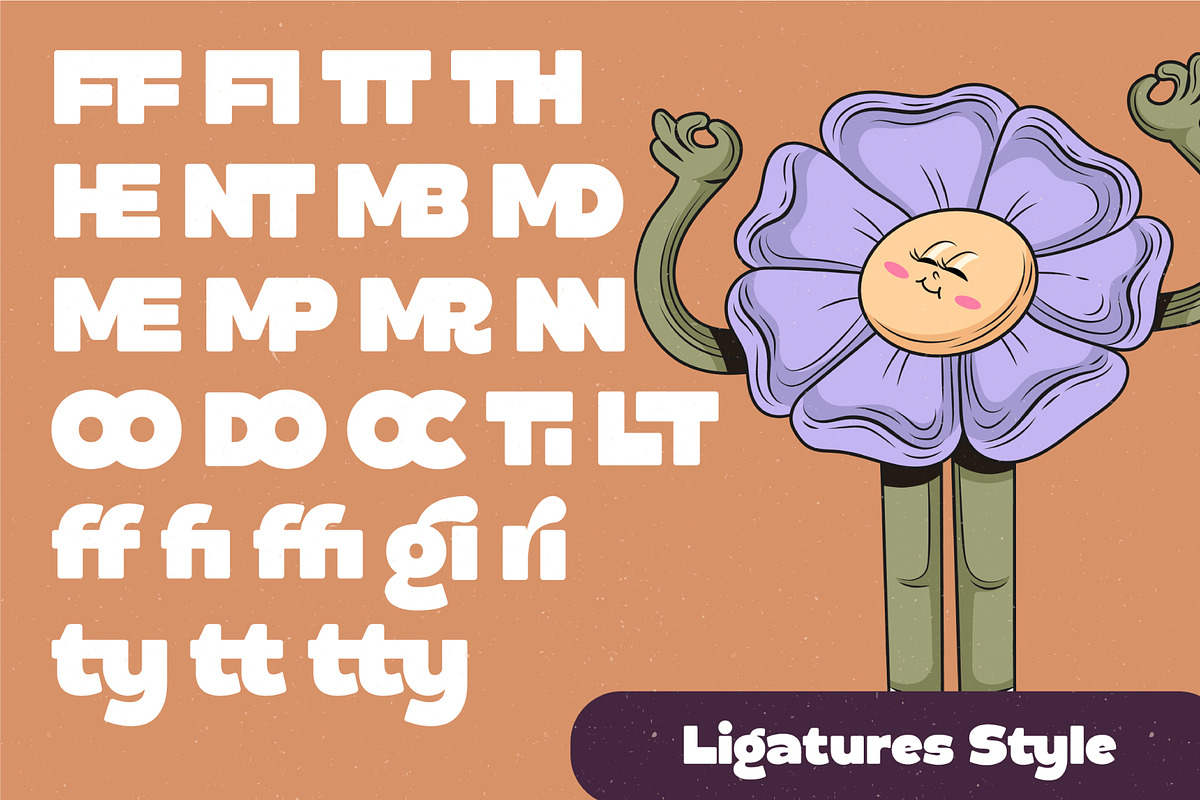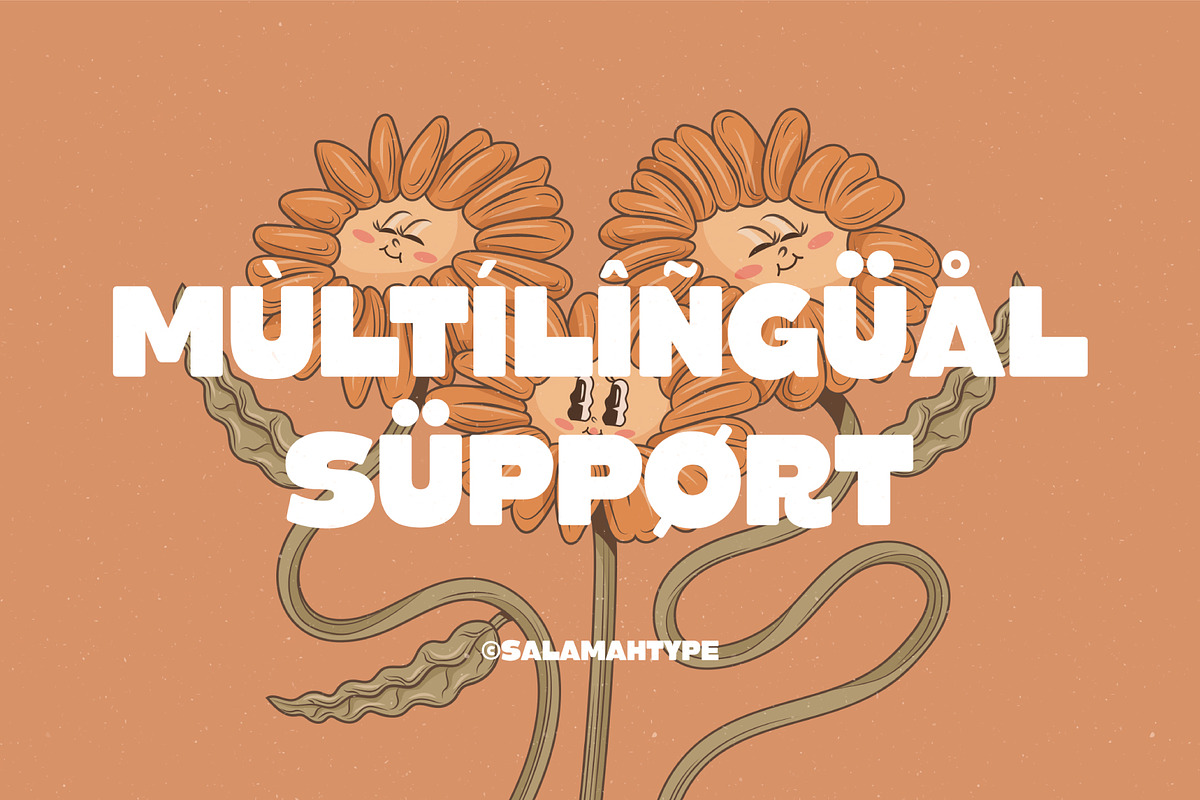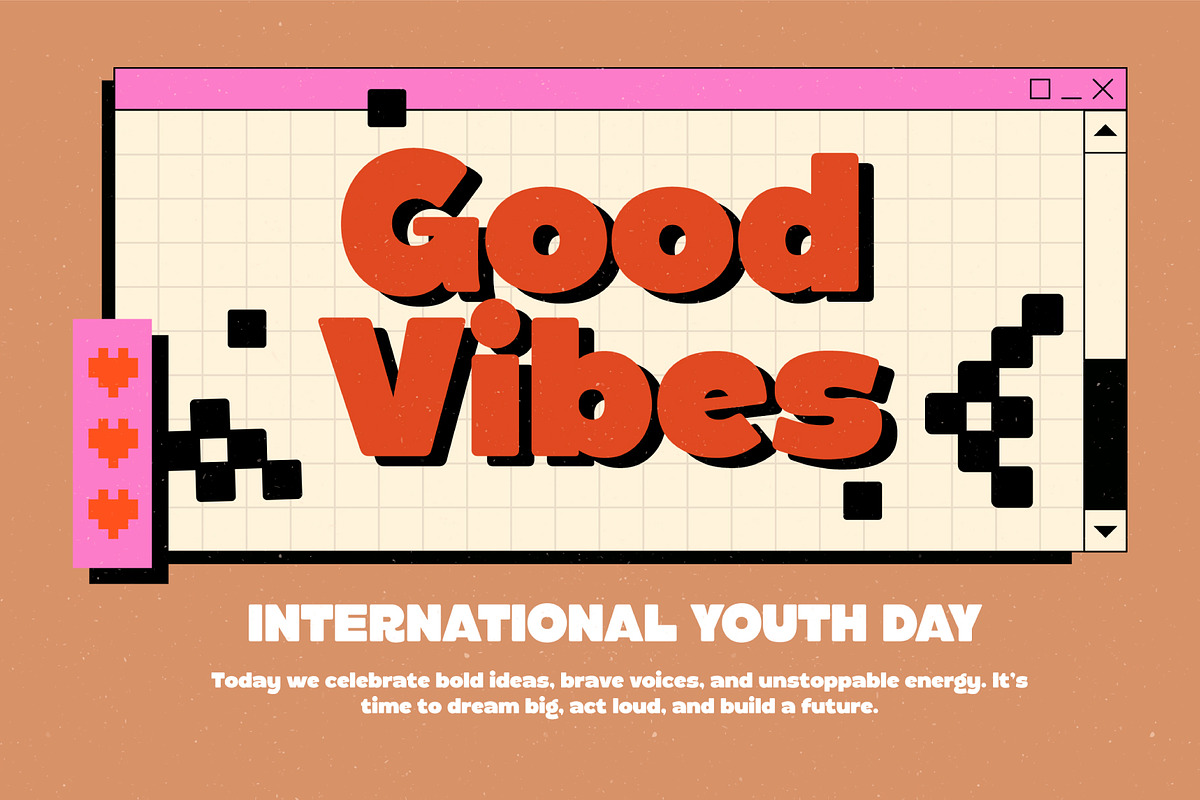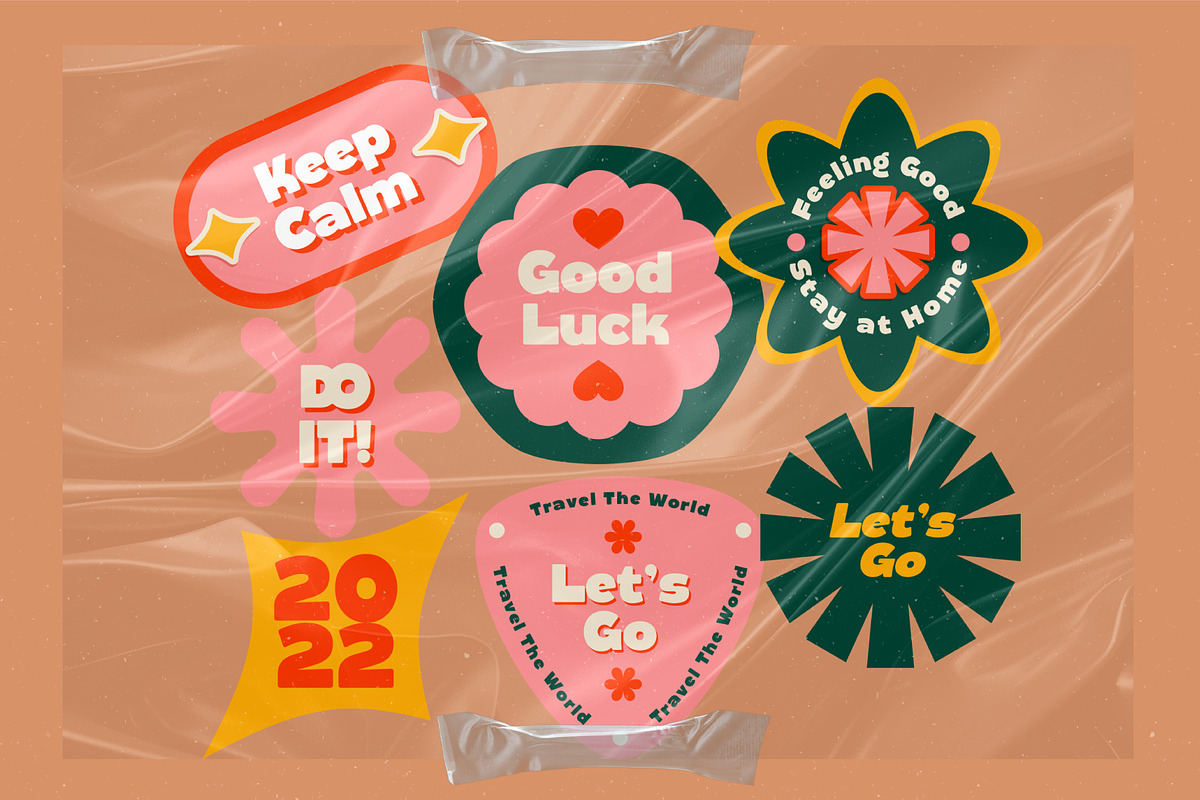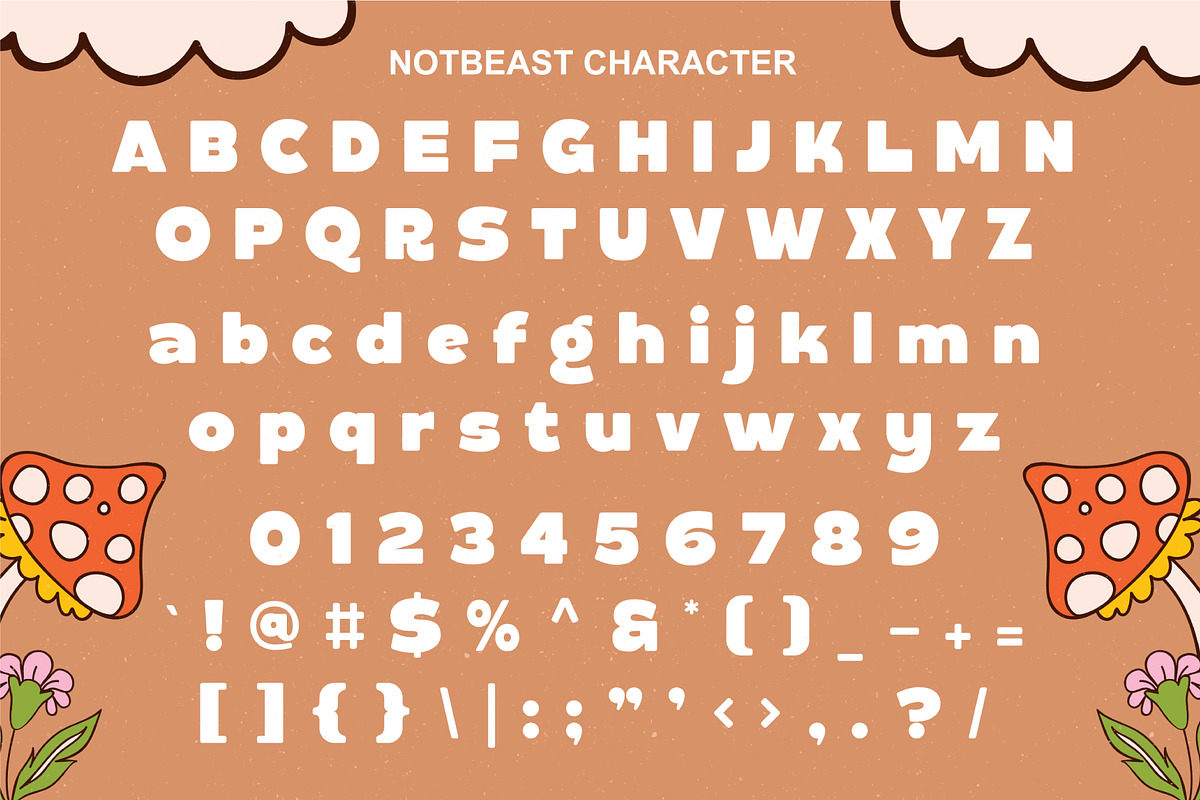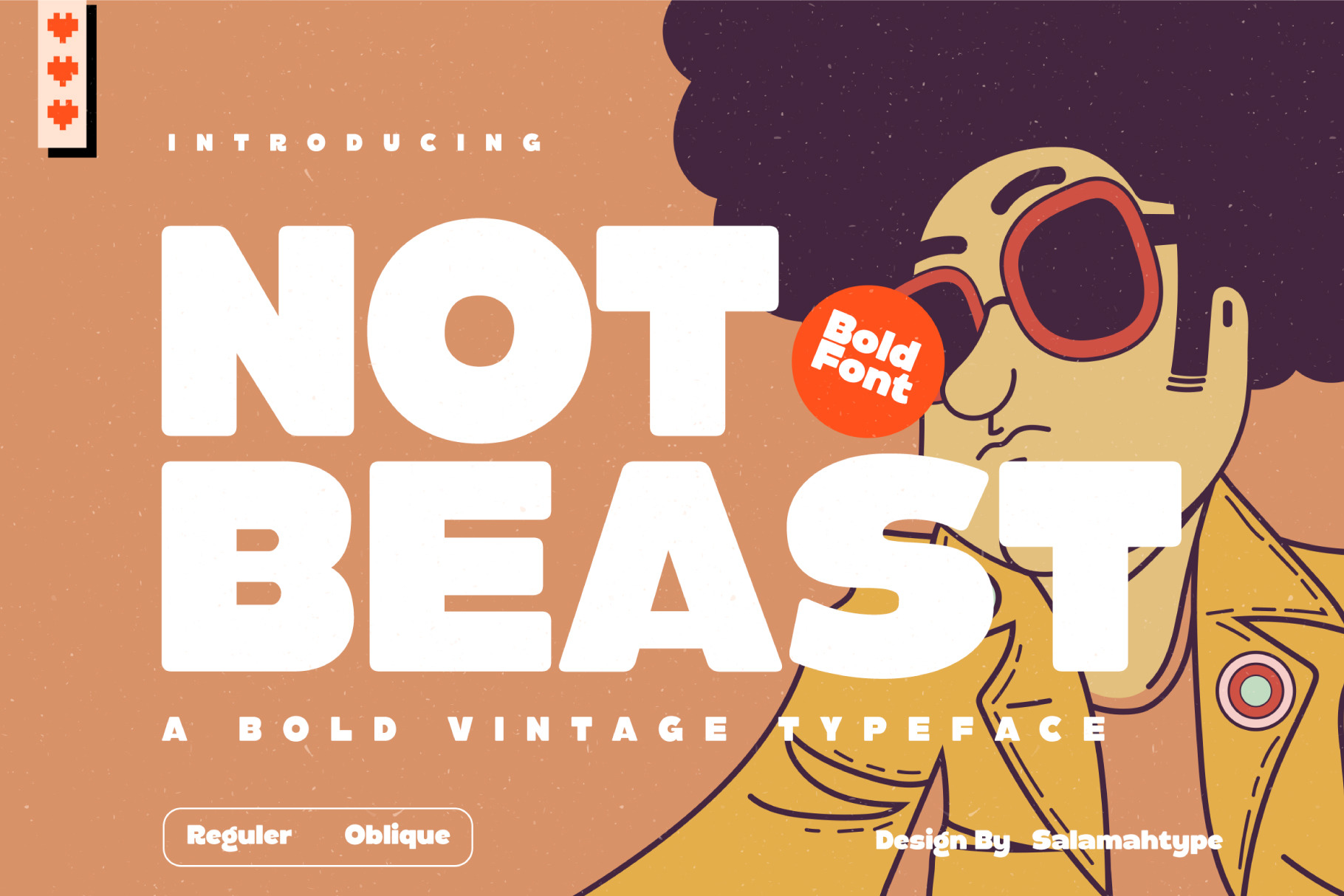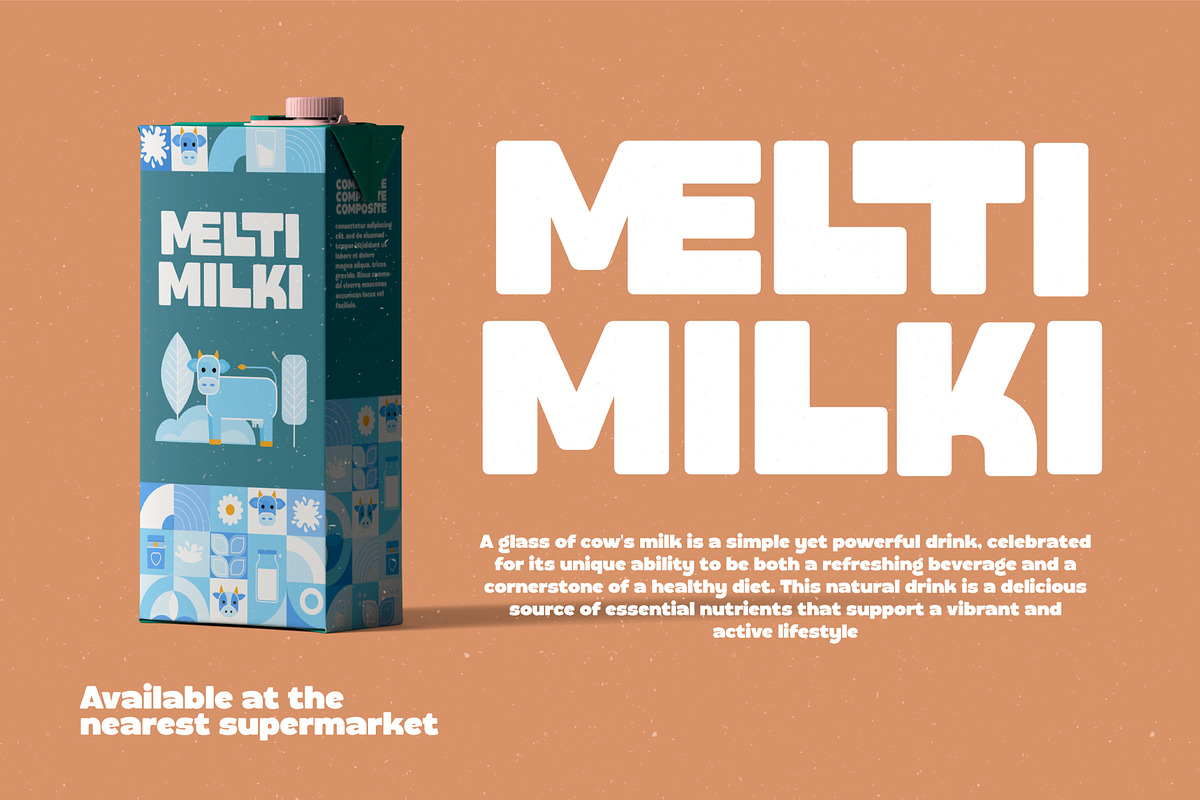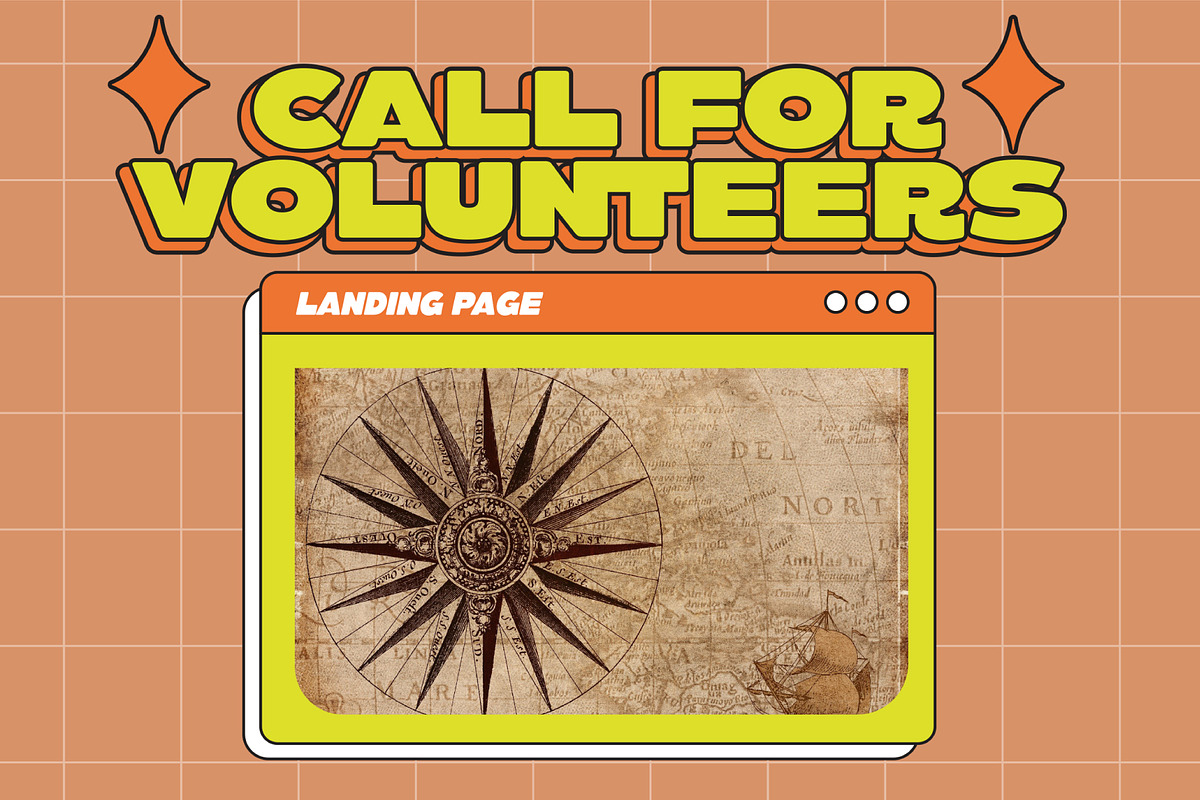
Not Beast - Vintage Bold Font
Not Beast is a strong and retro-inspired bold typeface that brings a touch of vintage flair to your designs. With its chunky letterforms and playful style, this font is perfect for posters, logos, packaging, album covers, apparel, and eye-catching headlines.
Available in Regular and Oblique styles, Not Beast gives you flexibility to create bold statements with a nostalgic charm. Whether you’re working on retro branding or modern creative projects, this font adds personality and power to every design.
- Bold vintage display style
- Regular & Oblique versions
- Great for logos, posters, packaging, and more
Make your designs stand out with the bold energy of Not Beast.